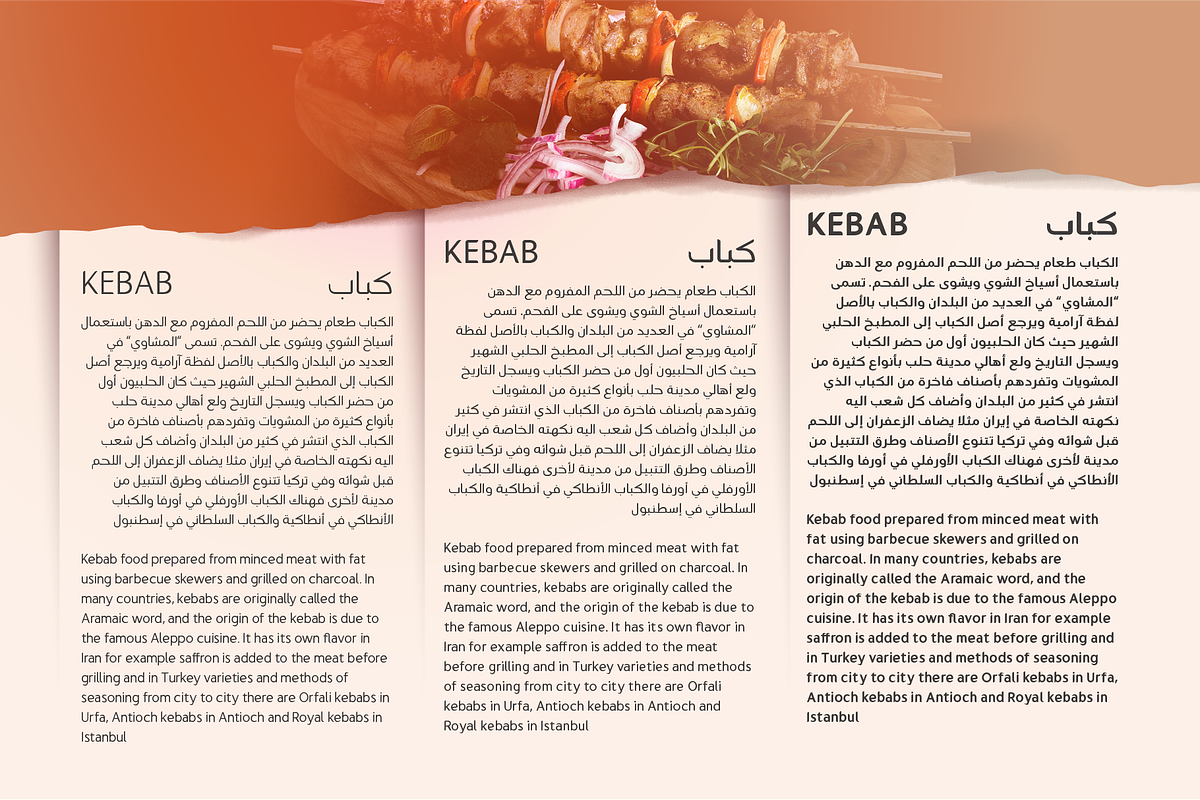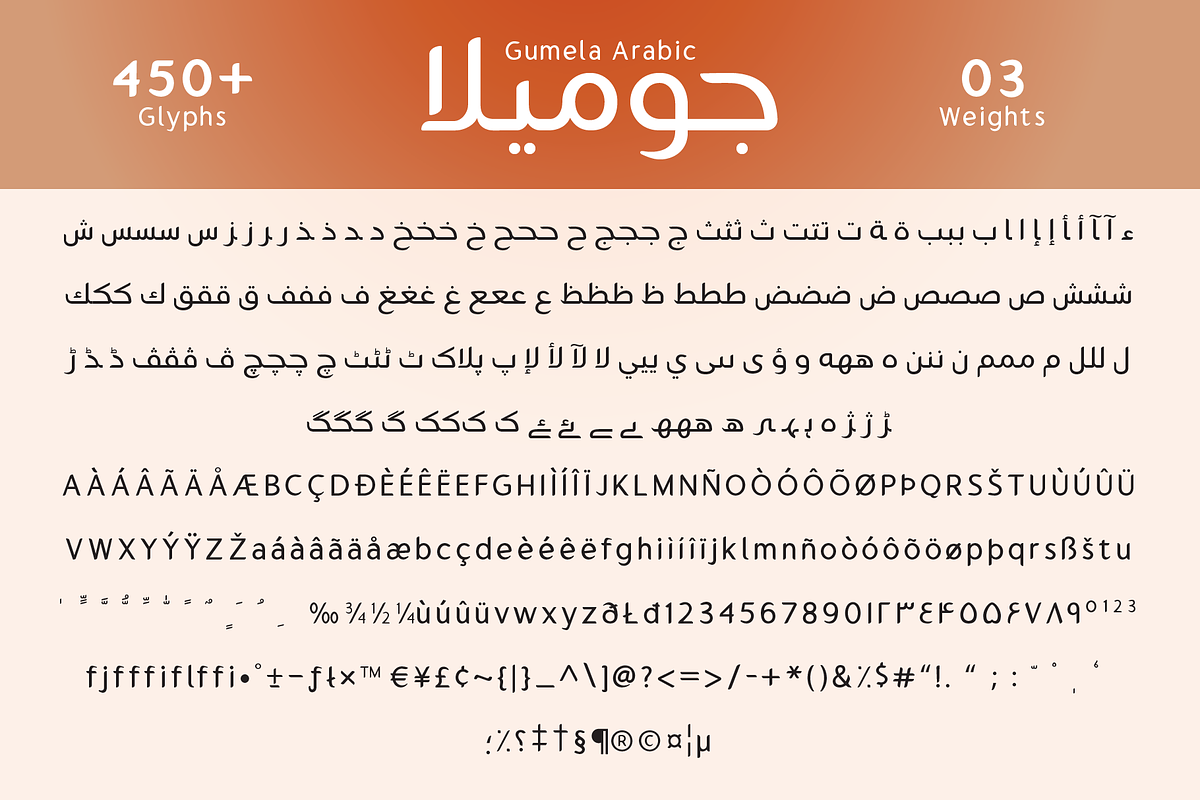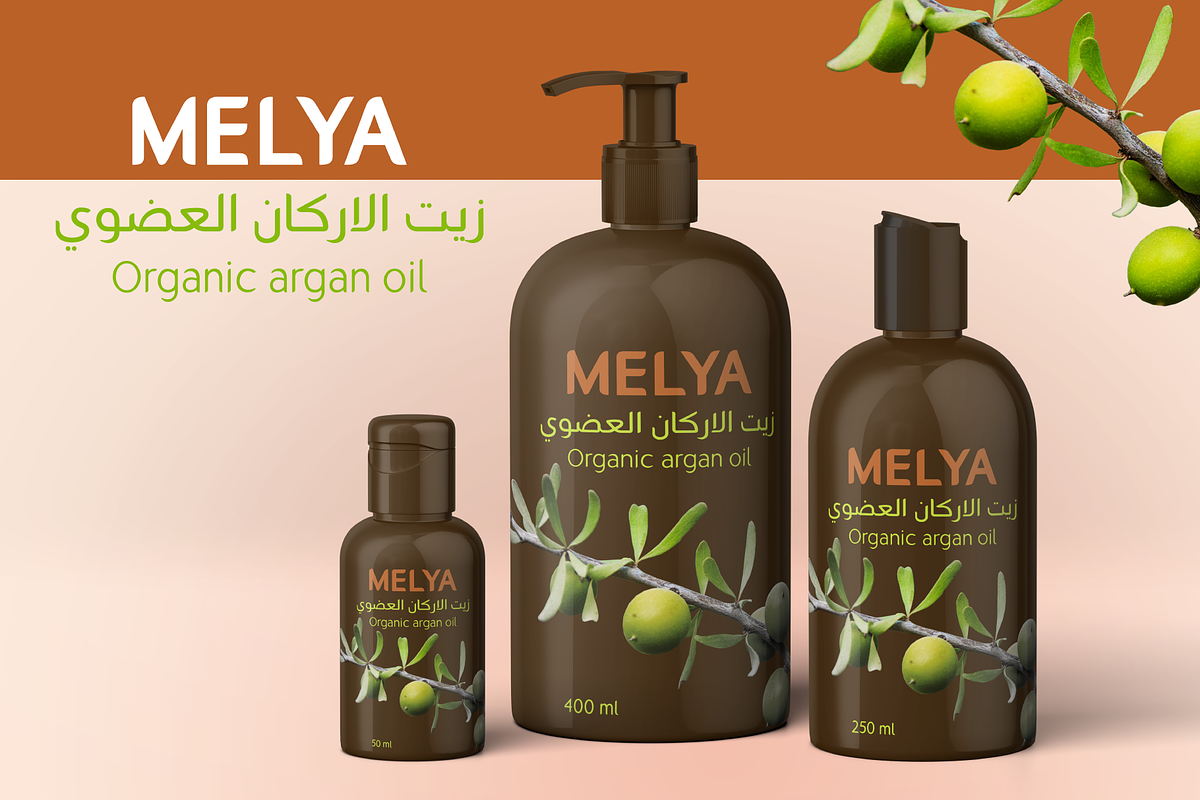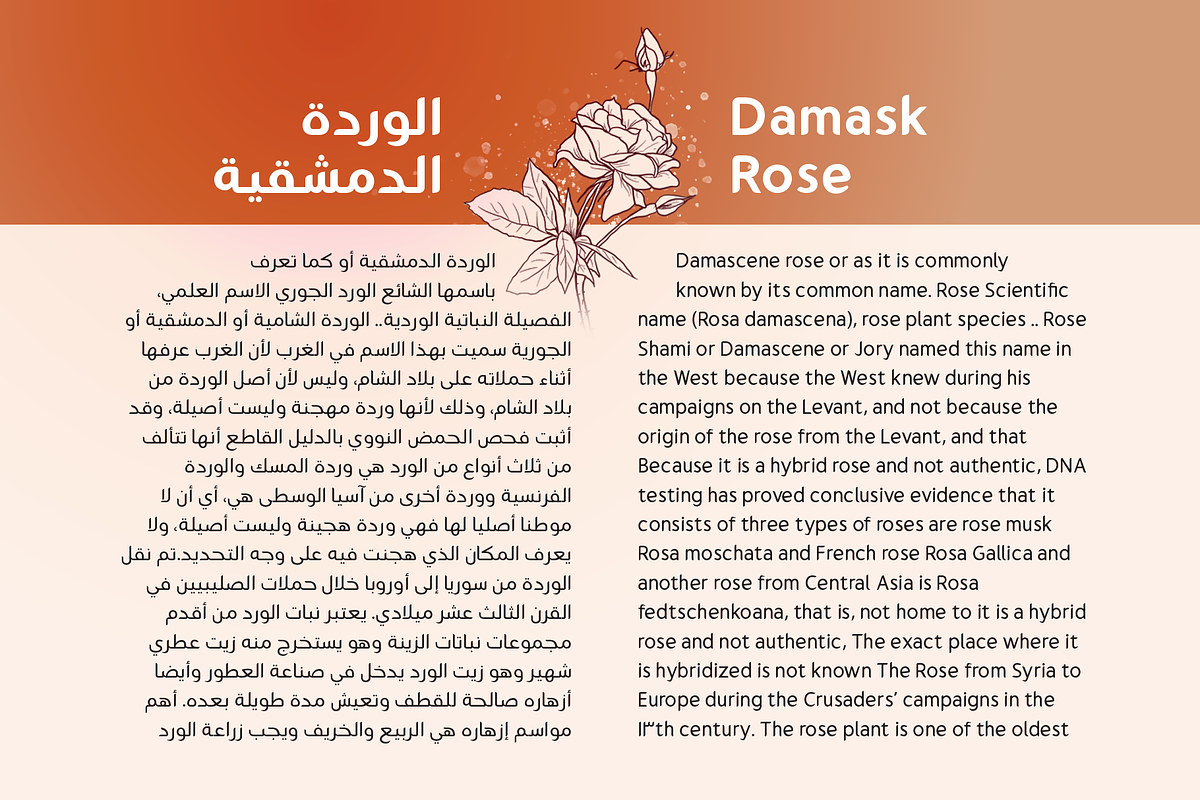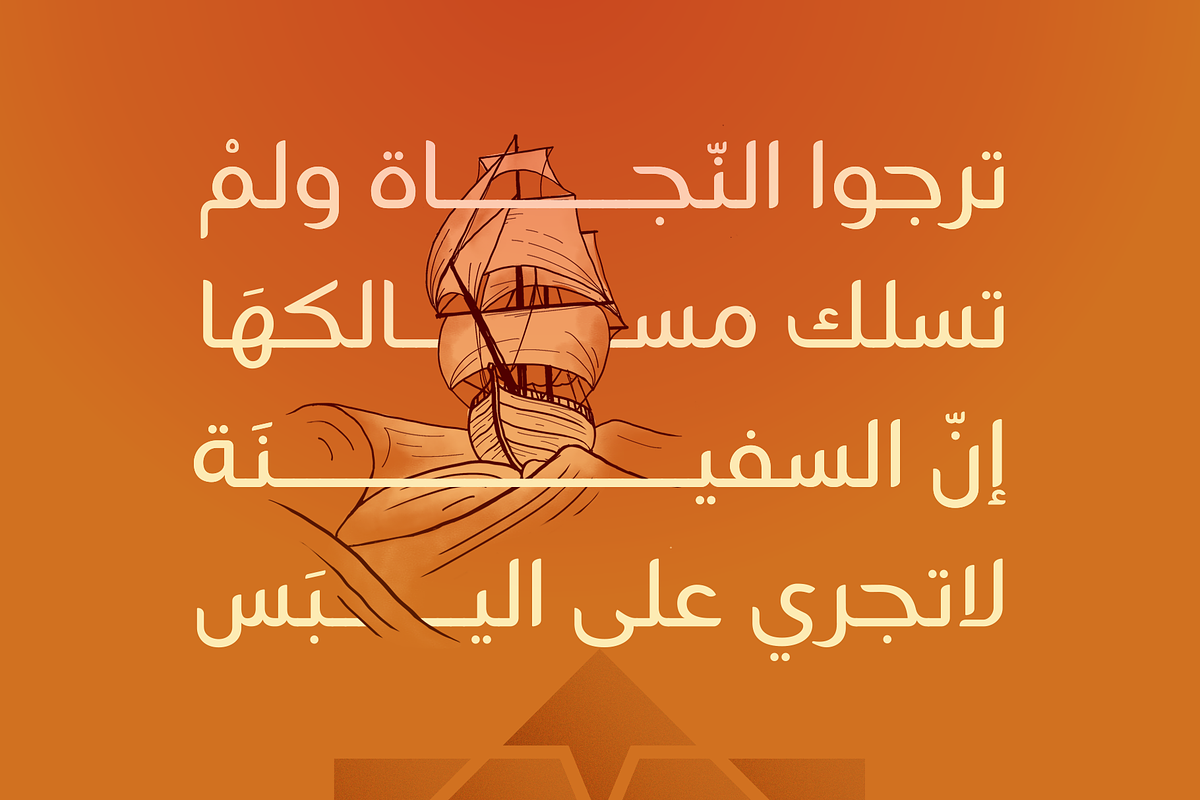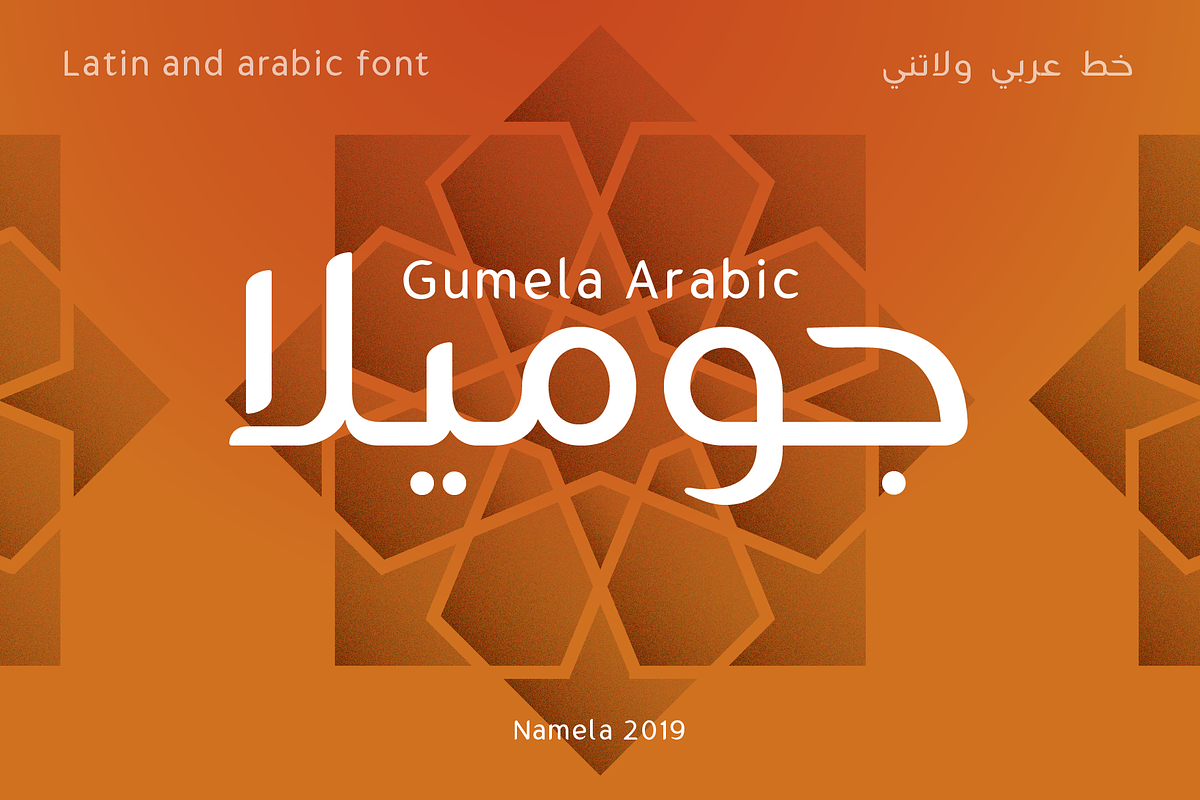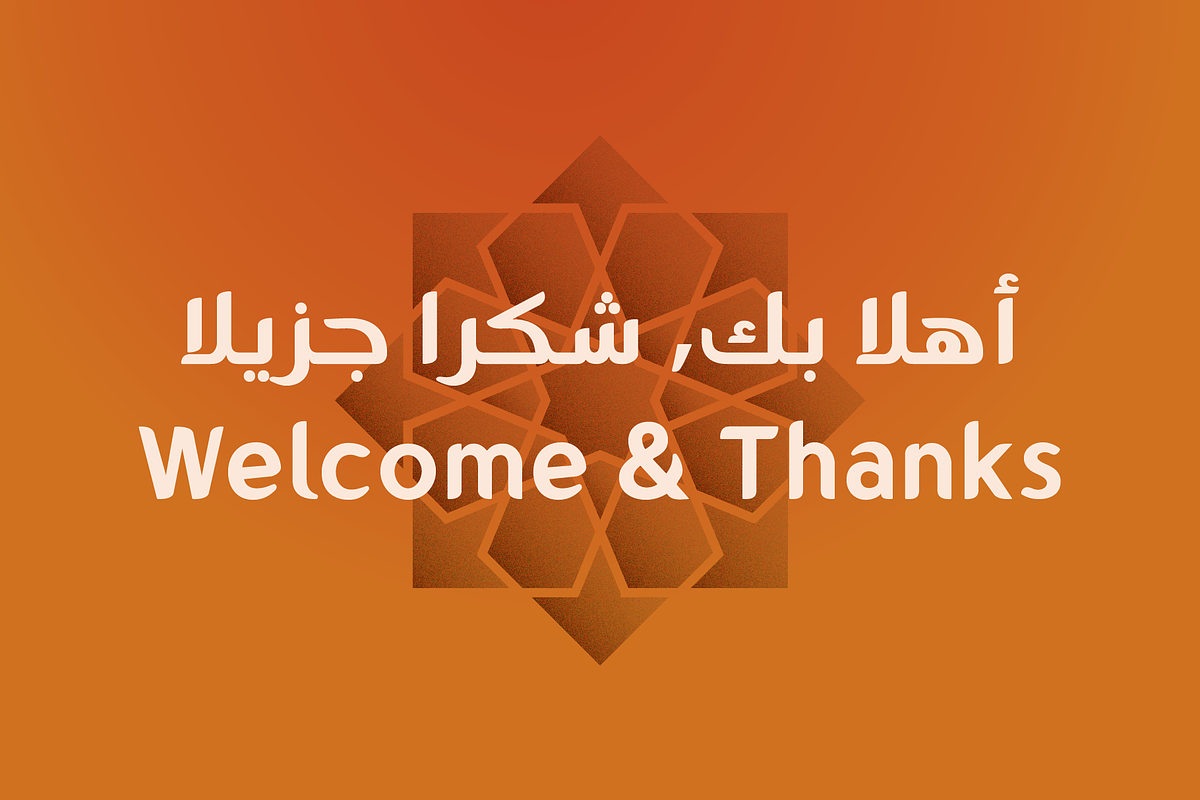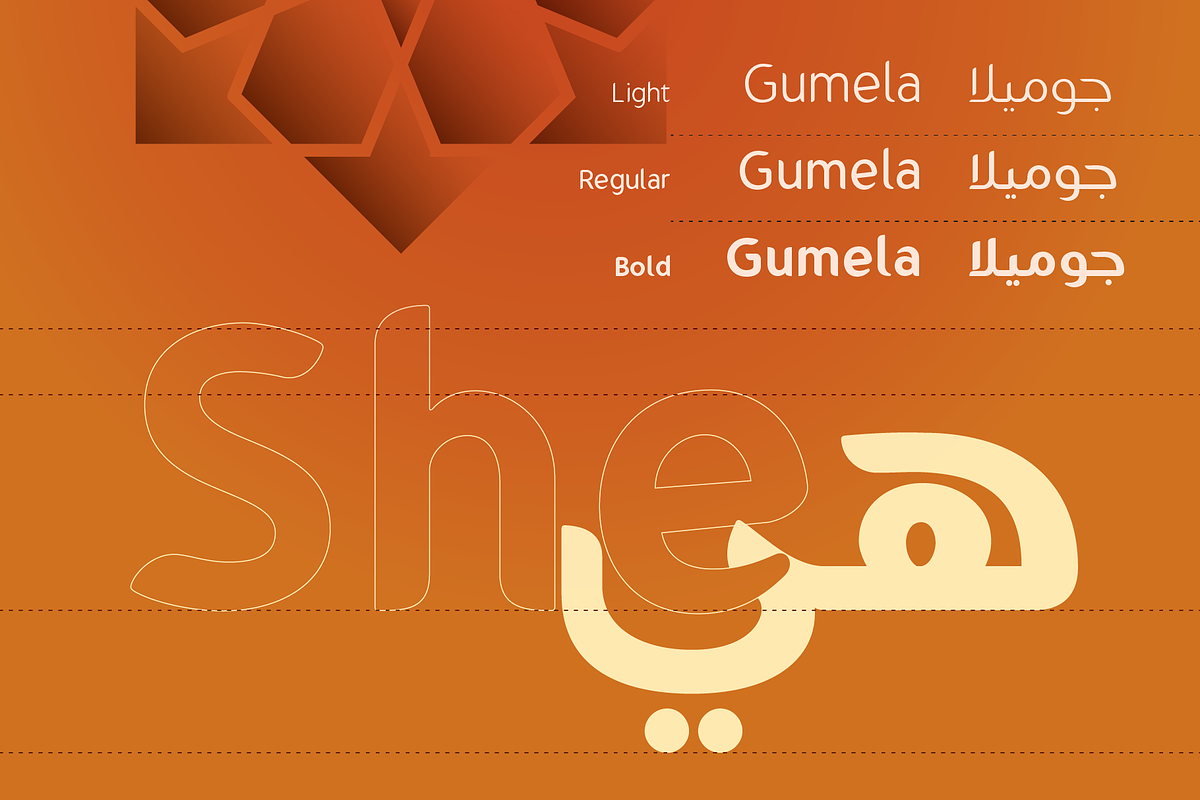
Gumela Arabic, Complete Family
Gumela Arabic font inspiration by the classic Kufic script and infuses it with a touch of contemporary design, making it a truly unique typeface. The edges of each character culminate in distinctive shapes, adding an artistic flair to the script.